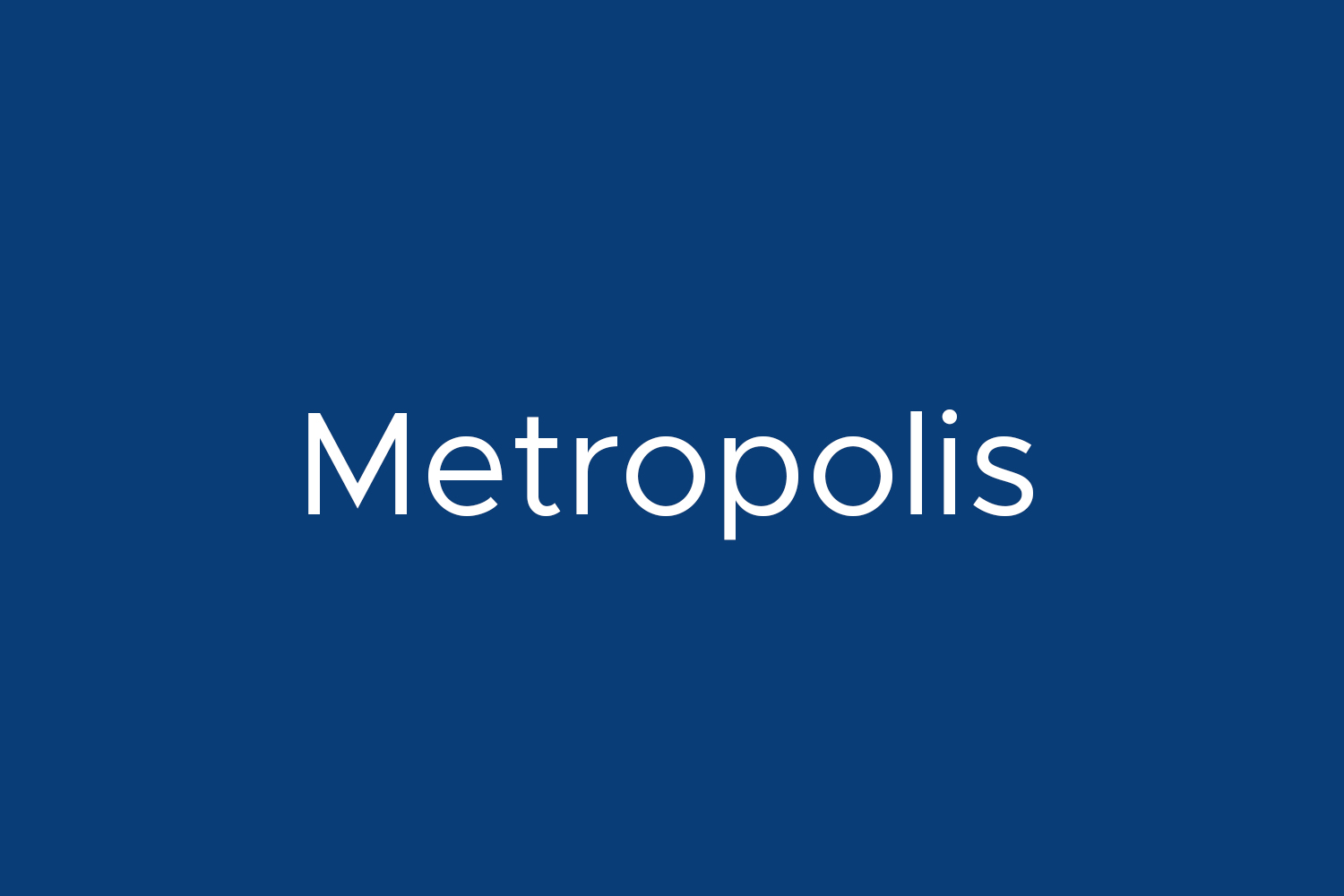
Metropolis Free Font Family is a modern, geometric typeface. Open sourced, and openly available. Influenced by other popular geometric, minimalist sans-serif typefaces of the new millennium. Designed for optimal readability at small point sizes while beautiful at large point sizes.
Designed by Chris Simpson